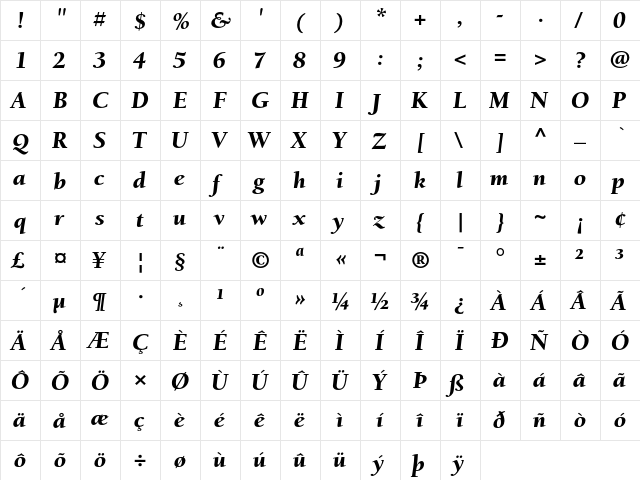
Berkeley Regular
Design Context for Berkeley Typeface
Berkeley is a composed and adaptable typeface that performs quietly and consistently across a wide range of design contexts.